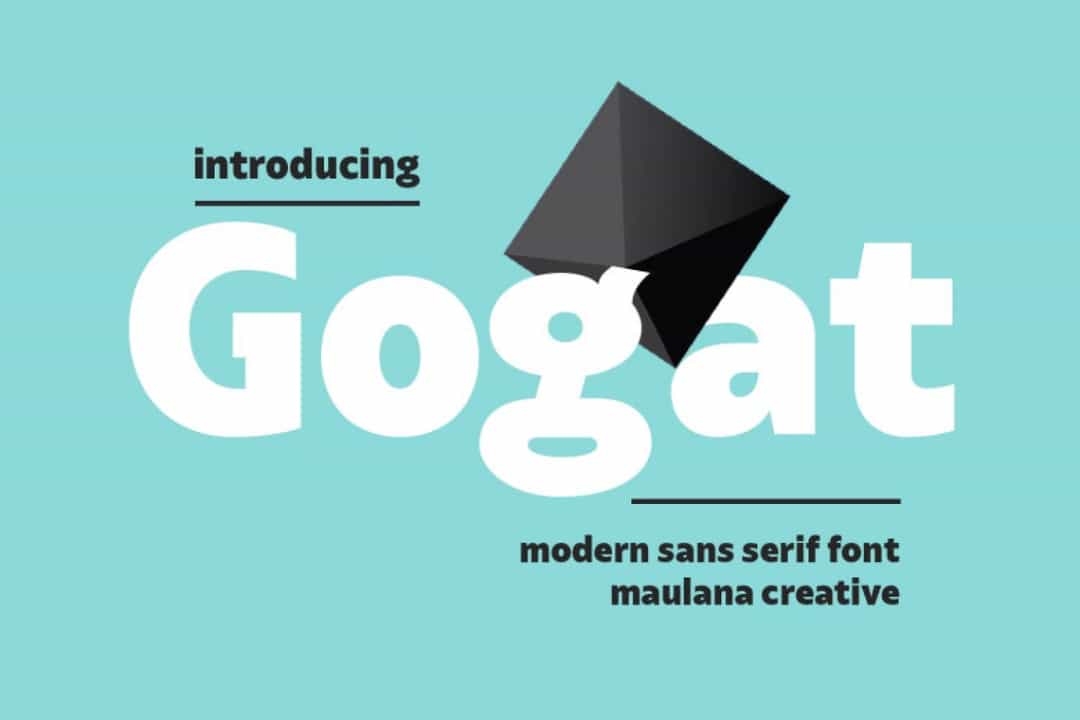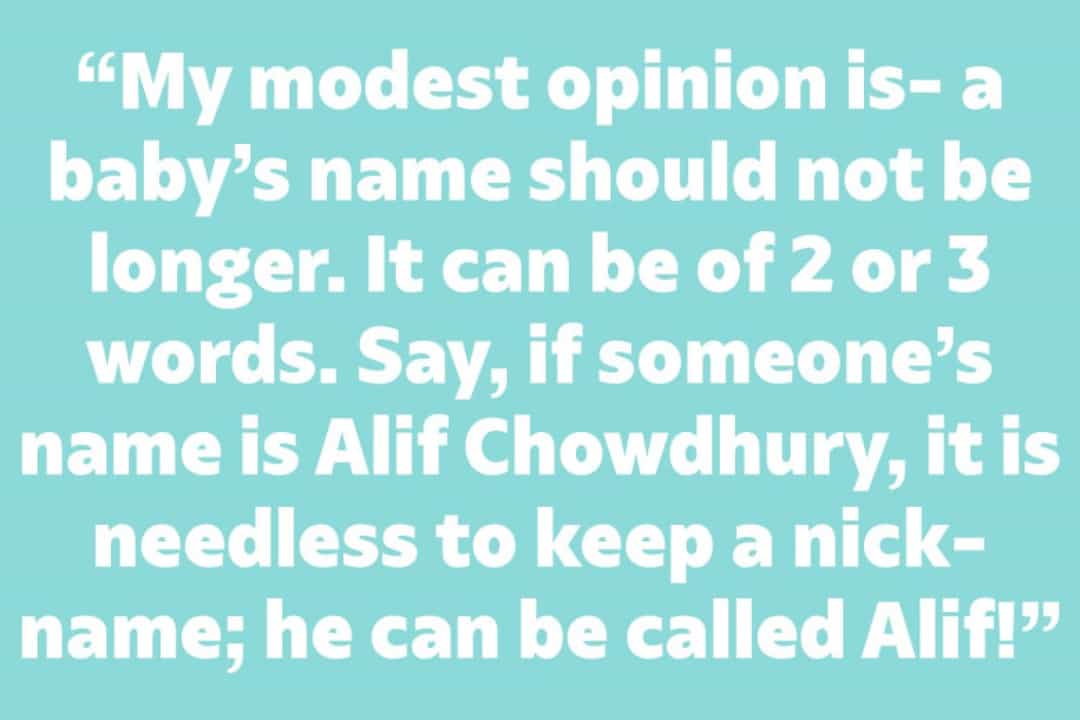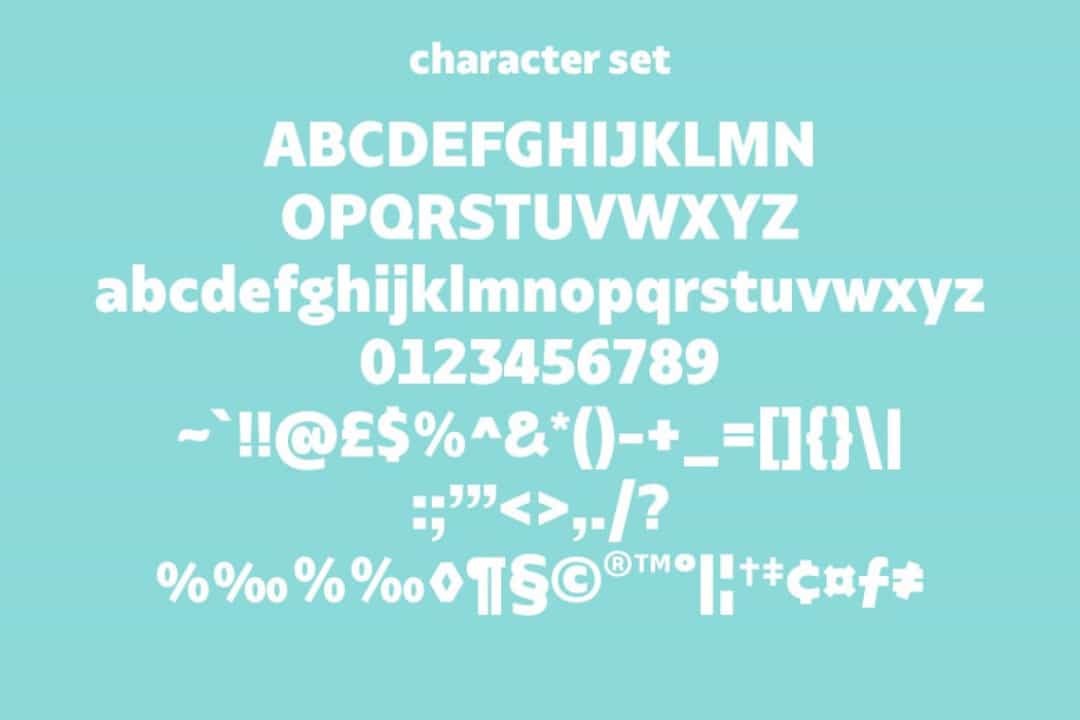
Gogat font is an accessible semi-geometric sans serif font featuring moderately low contrast strokes and an inviting character featuring alternates and ligatures to give your work extra imagination. Furthermore, Gogat supports multilingual support of over 100languages!